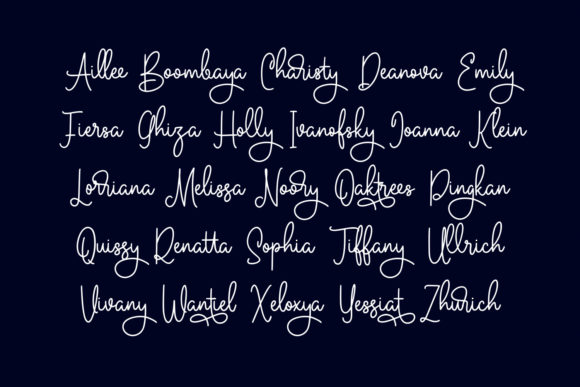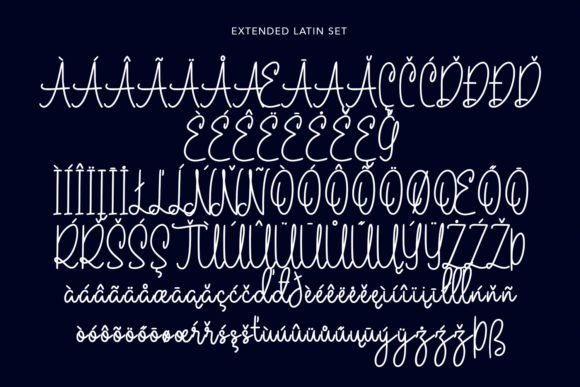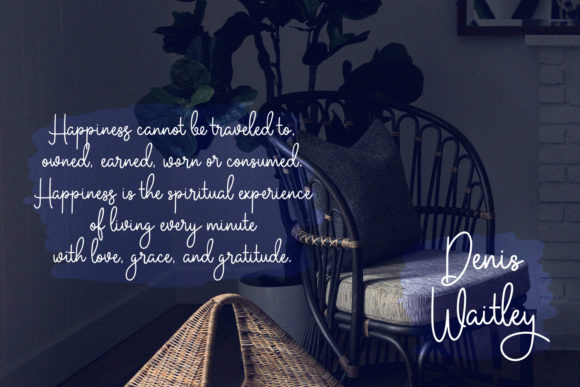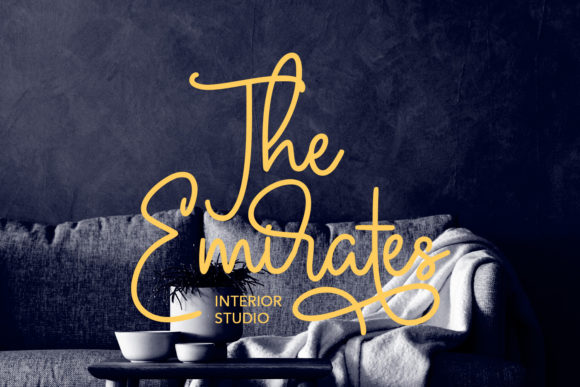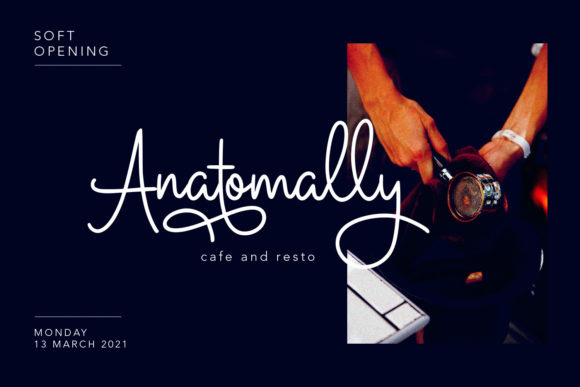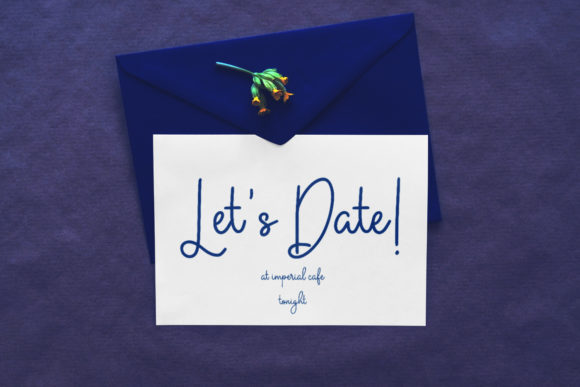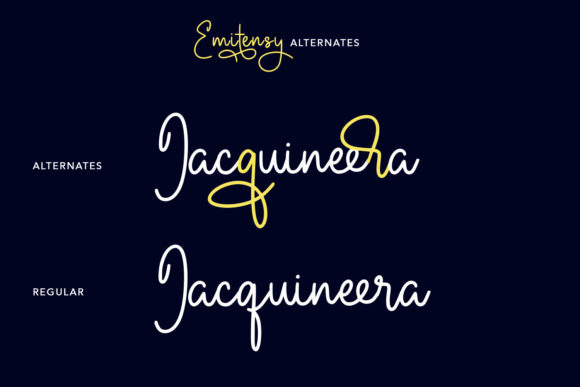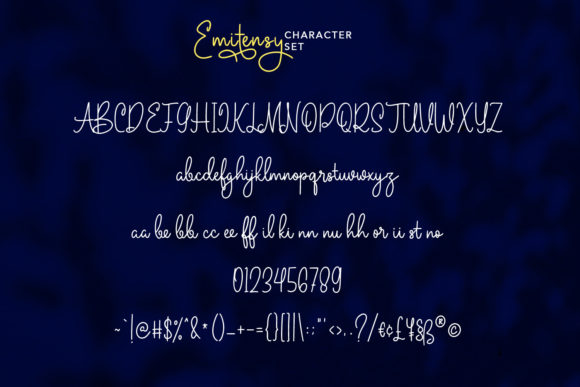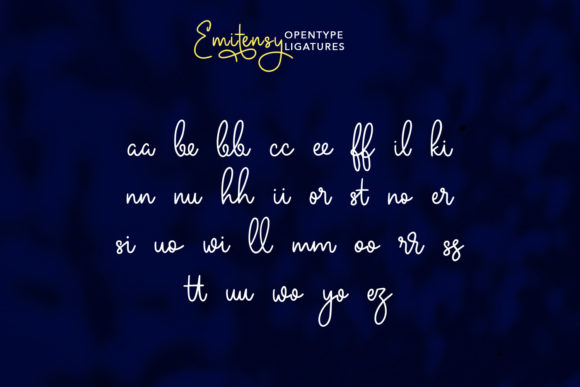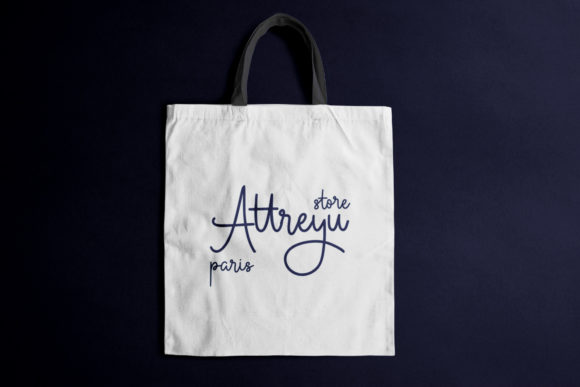
Emitensy Script Font
“Emitensy Script” is a delightful and delicate script font with thin letterforms that exudes joy and charm. With its vintage-inspired style and unique characteristics, this font is perfect for adding a touch of nostalgia and personality to your personalized creations.
The thin lettered design of “Emitensy Script” gives it an elegant and graceful appearance, making it an excellent choice for projects that require a delicate and refined look. Whether you’re designing wedding invitations, greeting cards, logos, or any other personalized designs, this font will make them stand out and leave a lasting impression.
The vintage-inspired style of “Emitensy Script” adds a sense of nostalgia and timelessness to your designs. It evokes a feeling of classic elegance and can transport your audience to a bygone era. The unique letterforms and intricate details of this font add depth and character, making it a truly special choice for your creative projects.
When using “Emitensy Script,” you can expect a font that is not only visually appealing but also highly versatile. It can be used for both formal and informal designs, adapting seamlessly to various themes and occasions. Its thin letterforms lend themselves well to elegant and refined concepts, while its joyful nature adds a playful touch to any design.
To enhance your personalized creations further, “Emitensy Script” offers a range of glyphs and swashes that can be easily accessed due to its PUA encoding. This allows you to add flourishes, ligatures, and unique letter combinations, giving your designs a truly customized and professional touch.
In summary, “Emitensy Script” is a joyful, delicate, and thin lettered script font with a vintage-inspired style. Its unique characteristics and thin letterforms make it an excellent choice for personalized creations that aim to stand out. With its PUA encoding, you can easily access additional glyphs and swashes to enhance your designs. Embrace the charm of “Emitensy Script” and bring a touch of nostalgia and elegance to your next project.